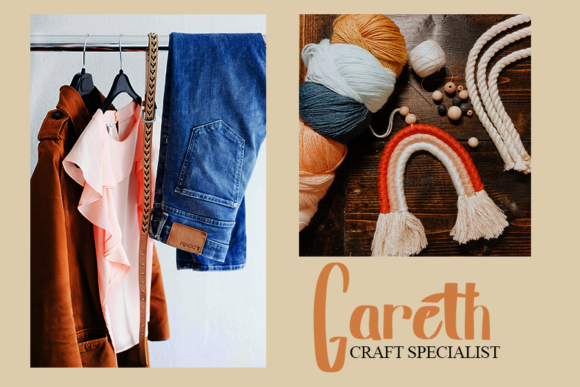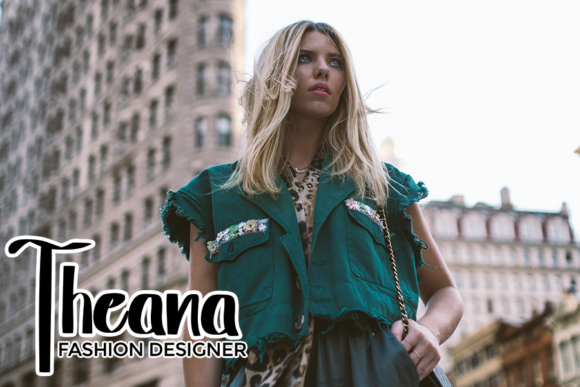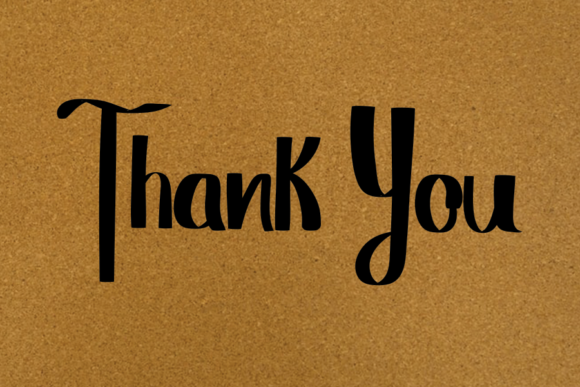
Introduction to Last Style Font
Have you ever stared at a blank canvas, feeling stuck and unsure of where to begin your creative project? For designers and crafters alike, those moments can be the most frustrating – and the most inspiring. It’s in those moments of uncertainty that we discover new sources of inspiration, and it’s exactly what happened when I stumbled upon the Last Style Font.
This cool, brushed handwritten font has quickly become a staple in my design resource library. Its versatility makes it perfect for everything from crafting and digital designing to presentations and greeting cards making. Whether you’re a seasoned pro or just starting out, the Last Style Font is a valuable addition to your toolkit.
Key Features of Last Style Font
- High-quality design resource with a transparent background, ideal for creative projects requiring a touch of elegance.
- Comes in a single font style, offering a sleek and modern aesthetic suitable for a wide range of applications, from digital to print media.
- Perfect for creative projects requiring a sophisticated touch, Last Style Font is an excellent choice for designers seeking a high-quality design resource.
Honest Review: Last Style Font
I recently had the chance to work with the Last Style Font, a free download that I was excited to incorporate into my design project. Overall, I was impressed with the quality and versatility of this font.
- High-quality design: The Last Style Font has a clean and modern aesthetic that fits perfectly with my creative project.
While I was overall happy with the Last Style Font, there were a few limitations that I encountered.
- Limited customization options: The font is quite basic and doesn’t offer a lot of customization options.
- Not ideal for complex designs: While the font is great for simple designs, it may not be the best choice for more complex projects.
In conclusion, I was pleased with the Last Style Font and would recommend it to designers looking for a reliable and free design resource. While it may not be the most versatile font, it’s perfect for simple designs and offers high-quality results.
Last Style Font
Tips for Getting the Most Out of Last Style Font
Last Style Font is perfect for creating eye-catching social media graphics, logos, and website headers. Its high-quality design makes it an excellent choice for any creative project.